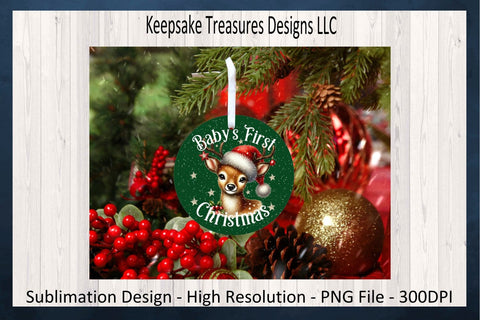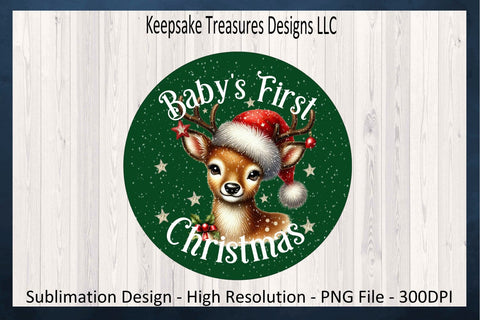
'Baby's First Christmas' Festive Fawn in Santa Hat on Green, Christmas Ornament Sublimation PNG
Celebrate a milestone moment with this charming design featuring an adorable fawn wearing a cozy Santa hat. The little deer's big, bright eyes and spotted coat pop against a rich evergreen background speckled with twinkling stars. Delicate snowflakes add a magical touch, while the curving text 'Baby's First Christmas' in elegant white script encircles the image. Perfect for capturing the wonder of a newborn's inaugural holiday season, this endearing illustration blends whimsy and warmth in a compact, circular format ideal for festive decorations or keepsakes.